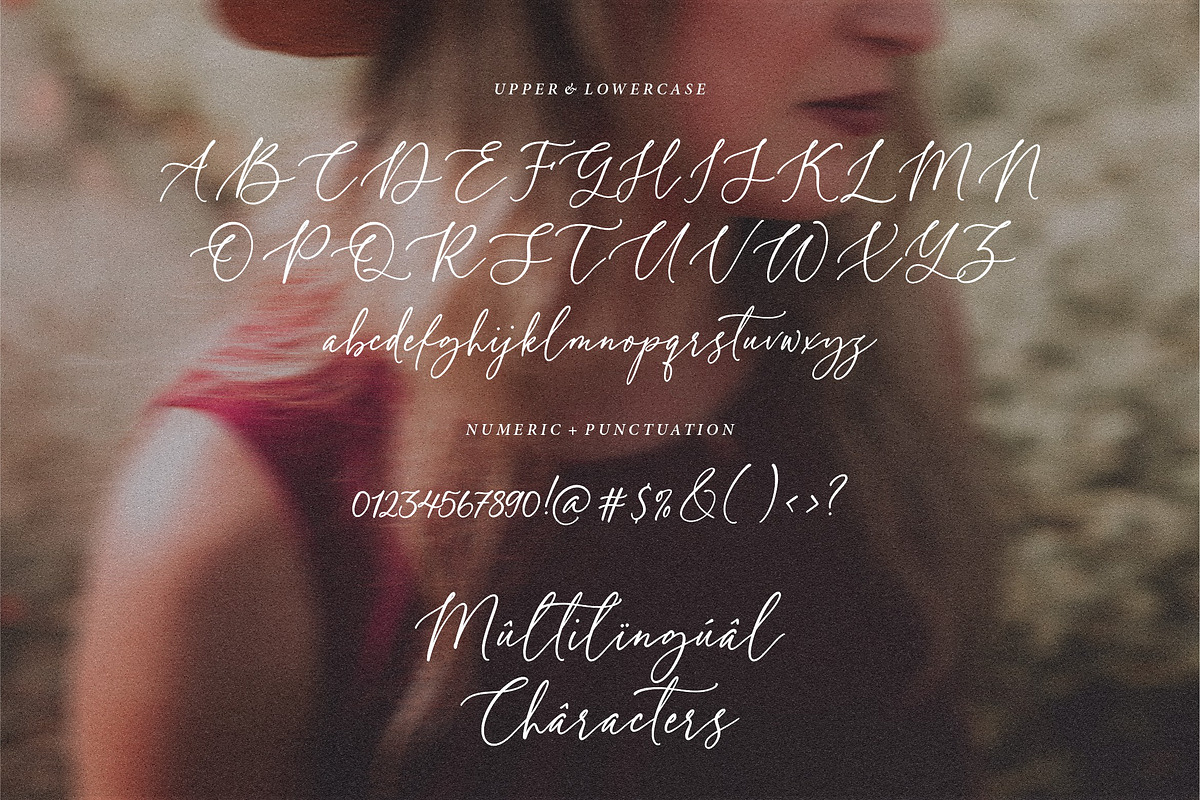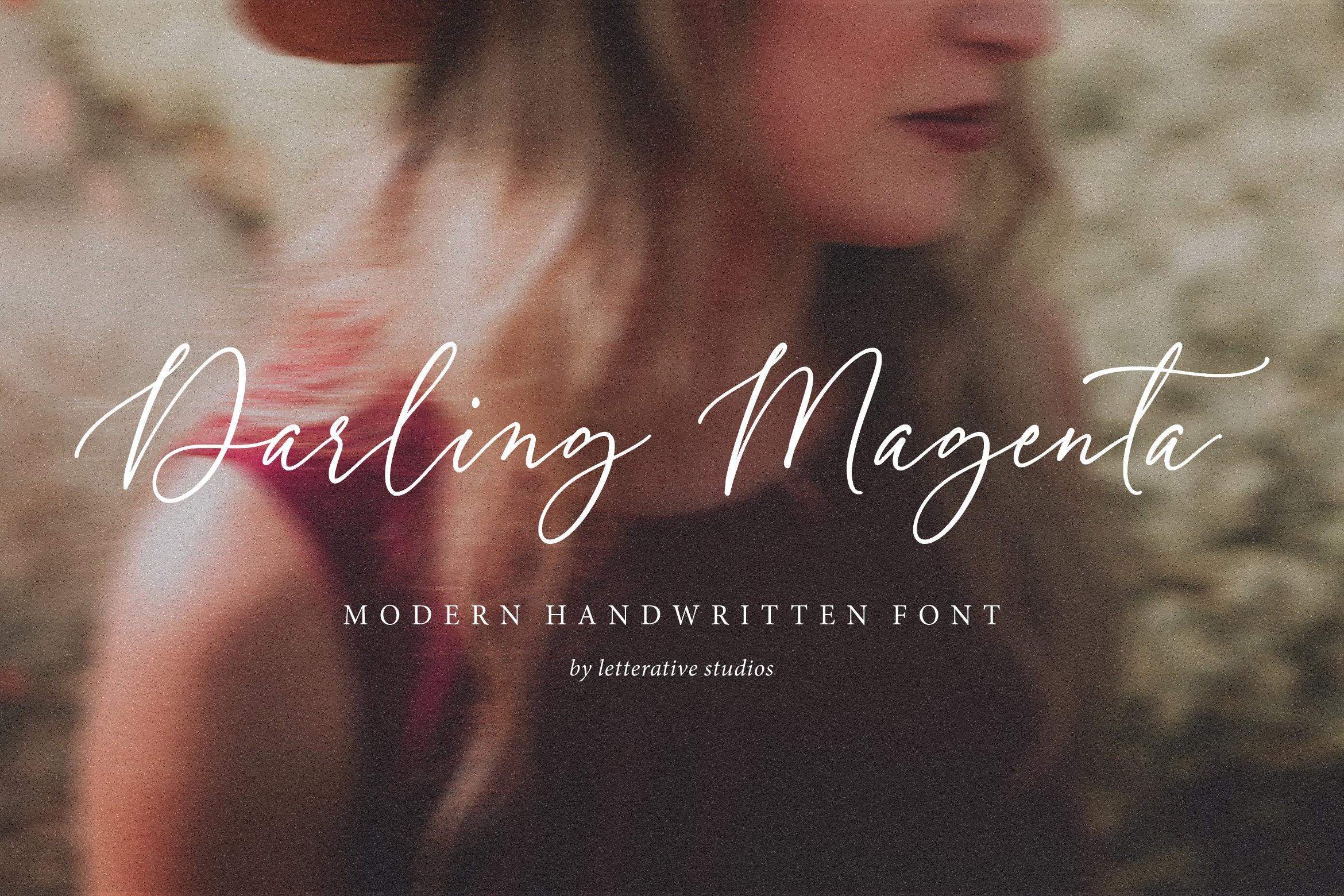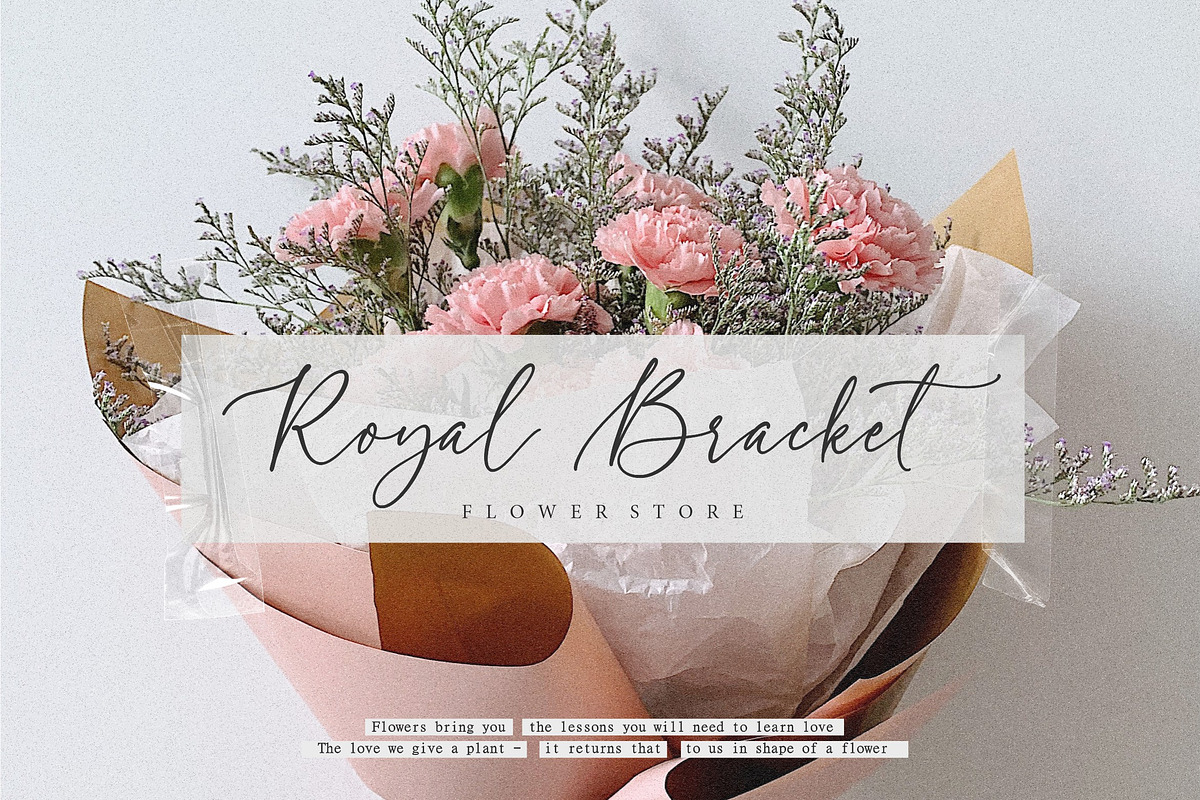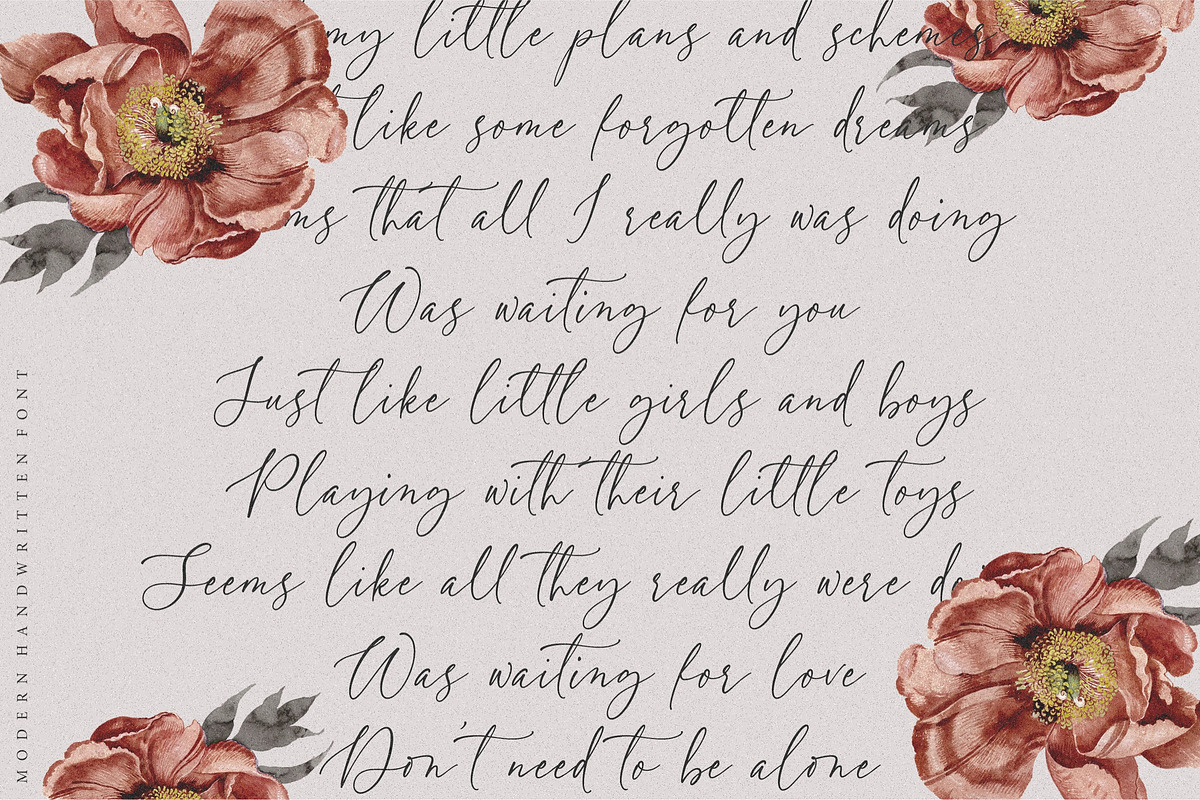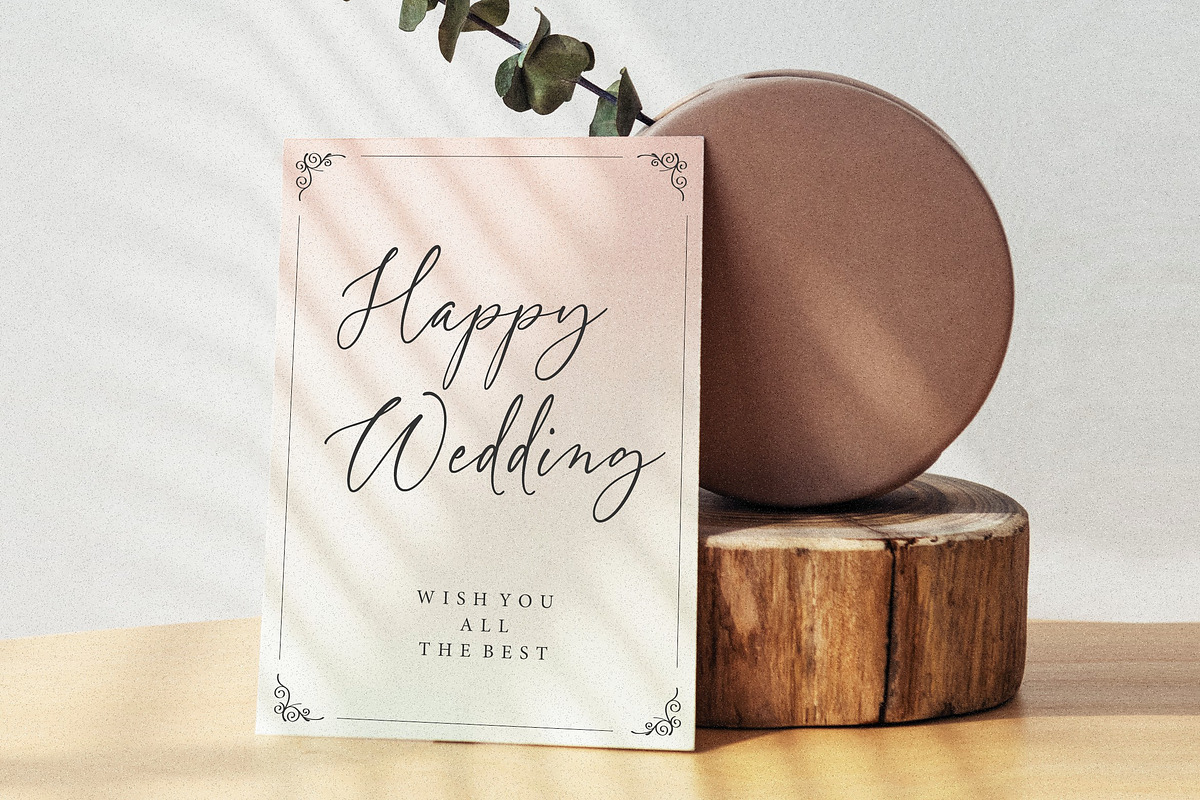
Darling Magenta - Handwritten Font
Introducing by Letterative Studio : Darling Magenta Font
Darling Magenta is a Modern Handwritten Font
Darling Magenta is perfect for product packaging, branding project, megazine, social media, wedding, or just used to express words above the background!